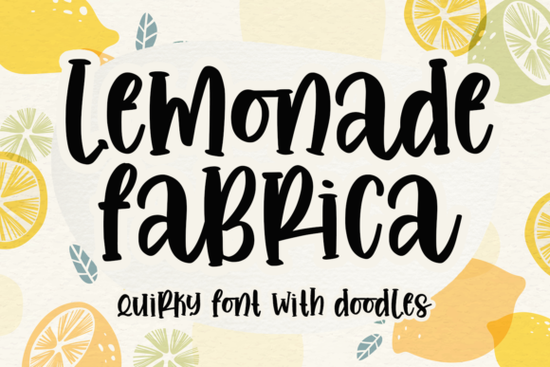
If you’ve been searching for a slab serif font that feels both timeless and fresh, Lemonade Fabrica Font might be exactly what your next project needs. It’s the kind of typeface that works just as well on a bold poster headline as it does in smaller body text something not every slab serif pulls off gracefully. Whether you’re designing merch for your Etsy shop, laying out a brochure for a local client, or just playing around with personal crafts, this font adapts without losing its character.
What makes it stand out is how it balances classic typography roots with enough personality to feel modern. You can find more fonts like this in our collection of slab serif fonts, but Lemonade Fabrica has a rhythm and weight variation that gives it extra flexibility.
Designers often ask which projects suit slab serifs and honestly, it depends on the font. With Lemonade Fabrica, you’re covered for almost any use case:
- Print materials business cards, packaging, posters, book covers
- Digital designs social media graphics, website headers, email banners
- Moving visuals short videos, animated quotes, YouTube thumbnails
- Crafting & POD t-shirts, mugs, tote bags, stickers, sublimation prints
It holds up beautifully at large sizes, where those thick serifs really shine. But don’t overlook using it for paragraphs thanks to thoughtful spacing and letterform design, it remains readable even in longer blocks. That’s rare for slab serifs, which often get clunky when scaled down.
Slab serifs can be tricky to pair too heavy, and they overpower; too light, and they vanish. Lemonade Fabrica sits right in the sweet spot. Try pairing it with:
- A clean sans-serif like Montserrat or Lato for contrast
- A handwritten script for warmth and personality
- Another slab serif with thinner strokes for layered hierarchy
One pro tip: when using it for headlines, bump up the tracking (letter spacing) slightly. It opens up the design and lets each character breathe especially useful for merch or logos where legibility matters at a glance.
Yes though nothing overly complicated. If you open the font in software that supports OpenType features (like Illustrator or Affinity Designer), you’ll find stylistic alternates for certain letters. These aren’t essential, but they add subtle flair if you’re going for a custom look. Think of them like secret seasoning a pinch here and there elevates the whole dish.
Also, the uppercase letters have a slightly condensed structure, making them perfect for tight layouts or vertical designs. Handy for mug wraps or narrow banners.
Whether you’re refreshing your brand assets, launching a new product line, or just experimenting with weekend crafts, Lemonade Fabrica Font gives you a solid, stylish foundation without the fuss. Sometimes the best tools are the ones that just work no tutorials, no troubleshooting, no second-guessing. This is one of those.